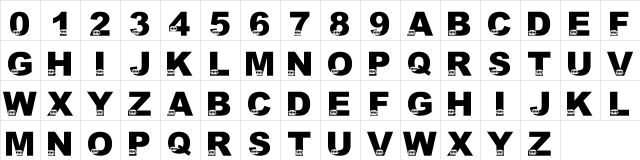
LMS Mr Rogers Trolly Regular Free Font
LMS Mr Rogers Trolly Regular
Design Context for LMS Mr Rogers Trolly
LMS Mr Rogers Trolly is a composed and adaptable typeface that performs quietly and consistently across a wide range of design contexts.